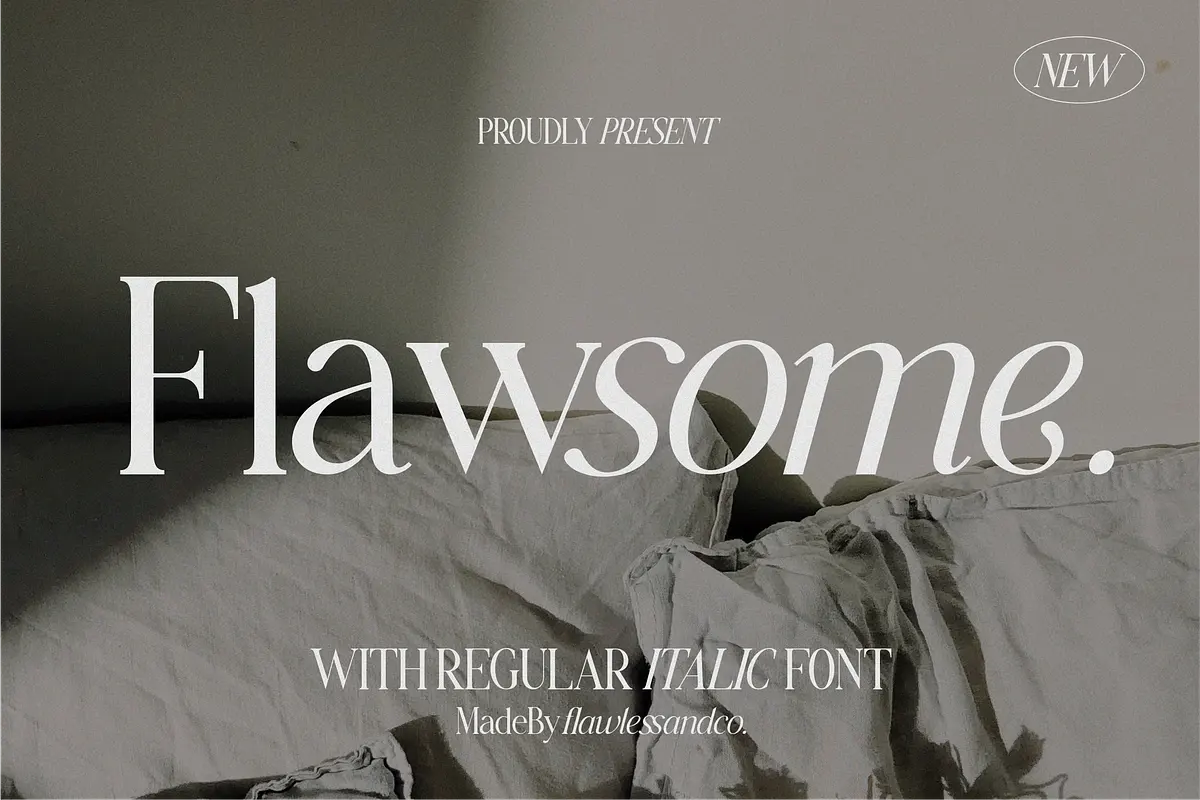
Flawsome Regular Italic Font Free Download is a stylish, elegant italic typeface with a modern and sophisticated feel. Featuring a smooth, flowing style, this font is perfect for creating unique and eye-catching designs like invitations, branding, logos, social media posts, and more.
The italicized design of Flawsome gives it an artistic and dynamic touch while maintaining readability, making it suitable for both display and body text. Whether you’re working on luxury branding, creative projects, or fashion-related content, this font adds a touch of class and personality to your work.
Add elegance and flair to your designs with the flowing beauty of Flawsome Regular Italic!